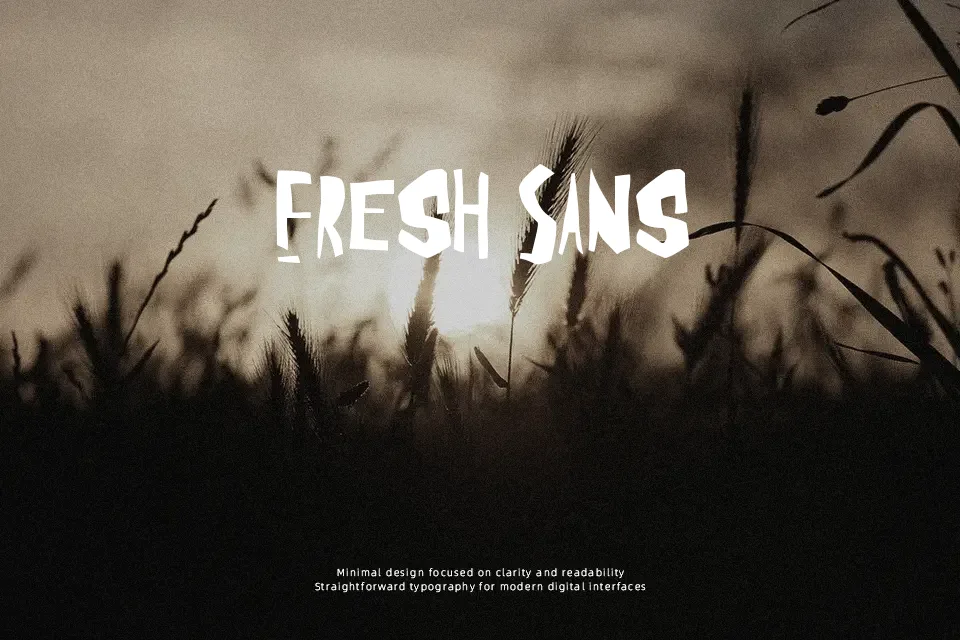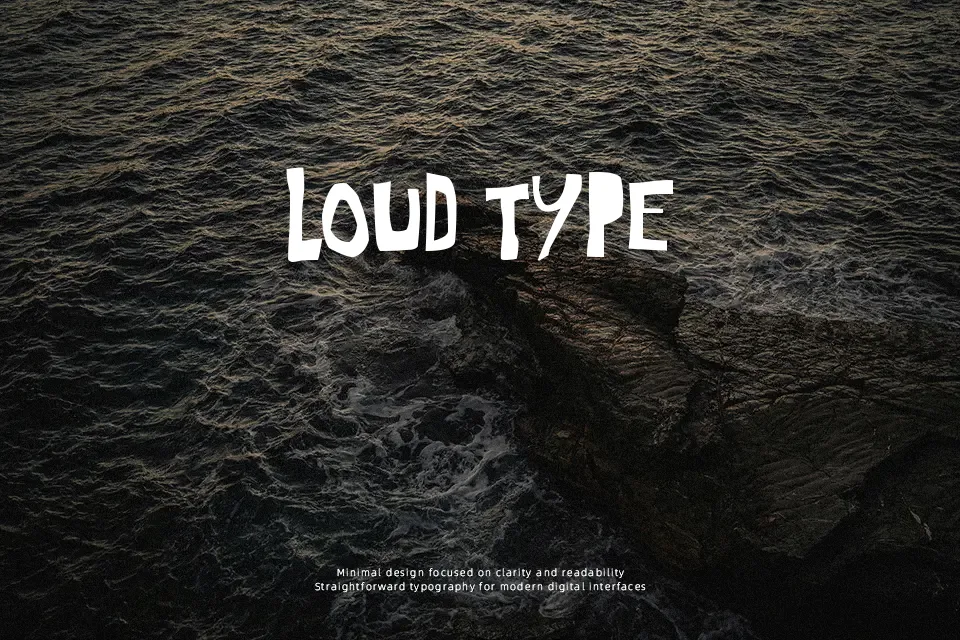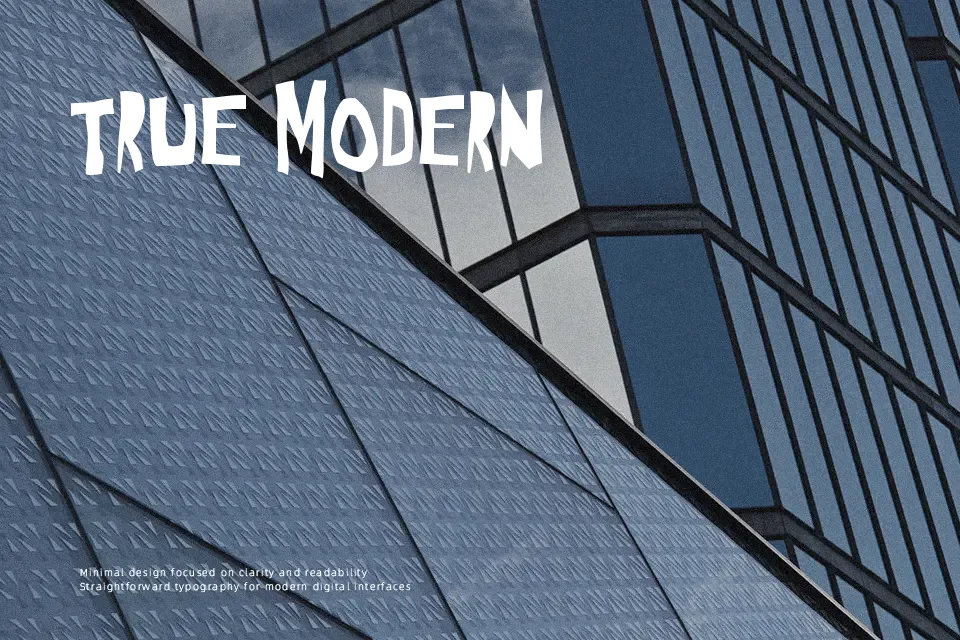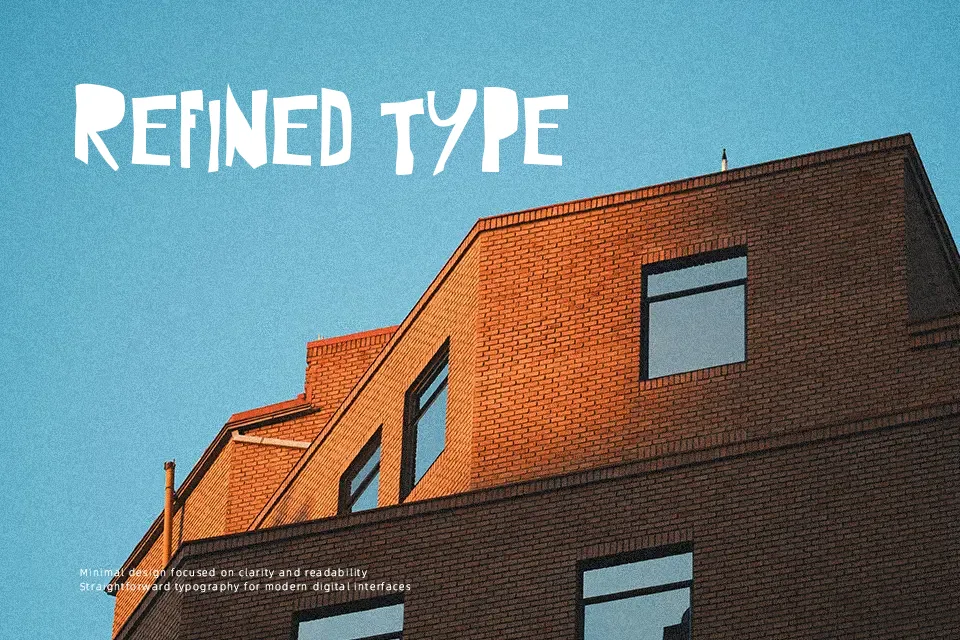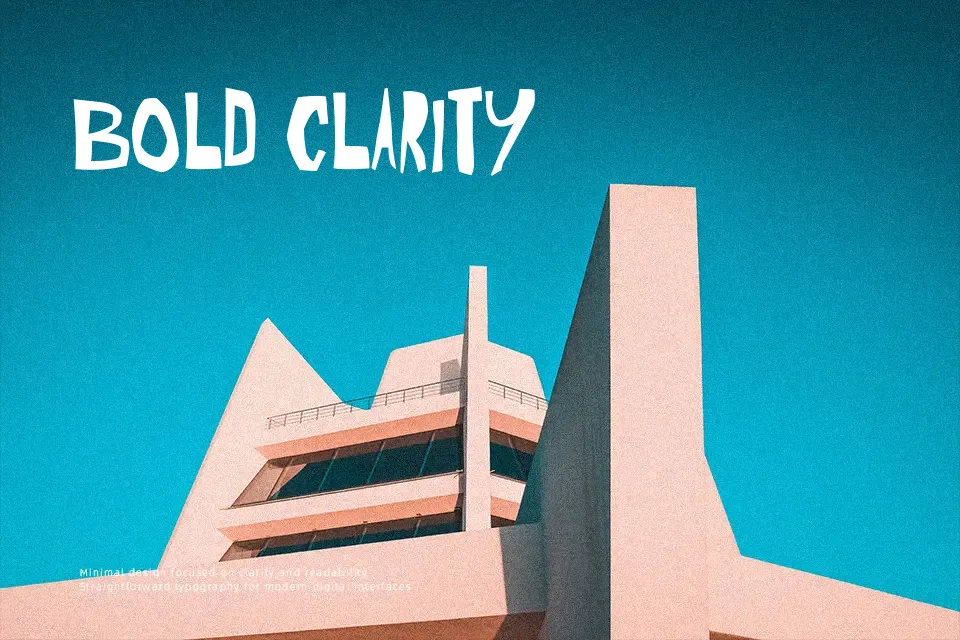
Strange Clowns Font
Strange Clowns Font uses chunky, irregular cartoon letterforms with rounded curves, shifting proportions, and a deliberately offbeat rhythm. The strokes appear heavy and largely uniform, while the compact, expressive shapes give uppercase and lowercase text a lively display-focused presence. It works most clearly in short words, poster titles, party materials, and playful packaging where its unusual silhouette can remain visible. The dense forms hold attention in larger headlines, but the decorative construction makes extended reading tiring. Small captions, narrow layouts, and information-heavy copy will lose clarity more quickly than simple display text.
Best For: children’s party invitations,playful poster headlines,novelty packaging,themed event signage
Perfect for headline, invitation, and kids, with a bold and cartoon style.